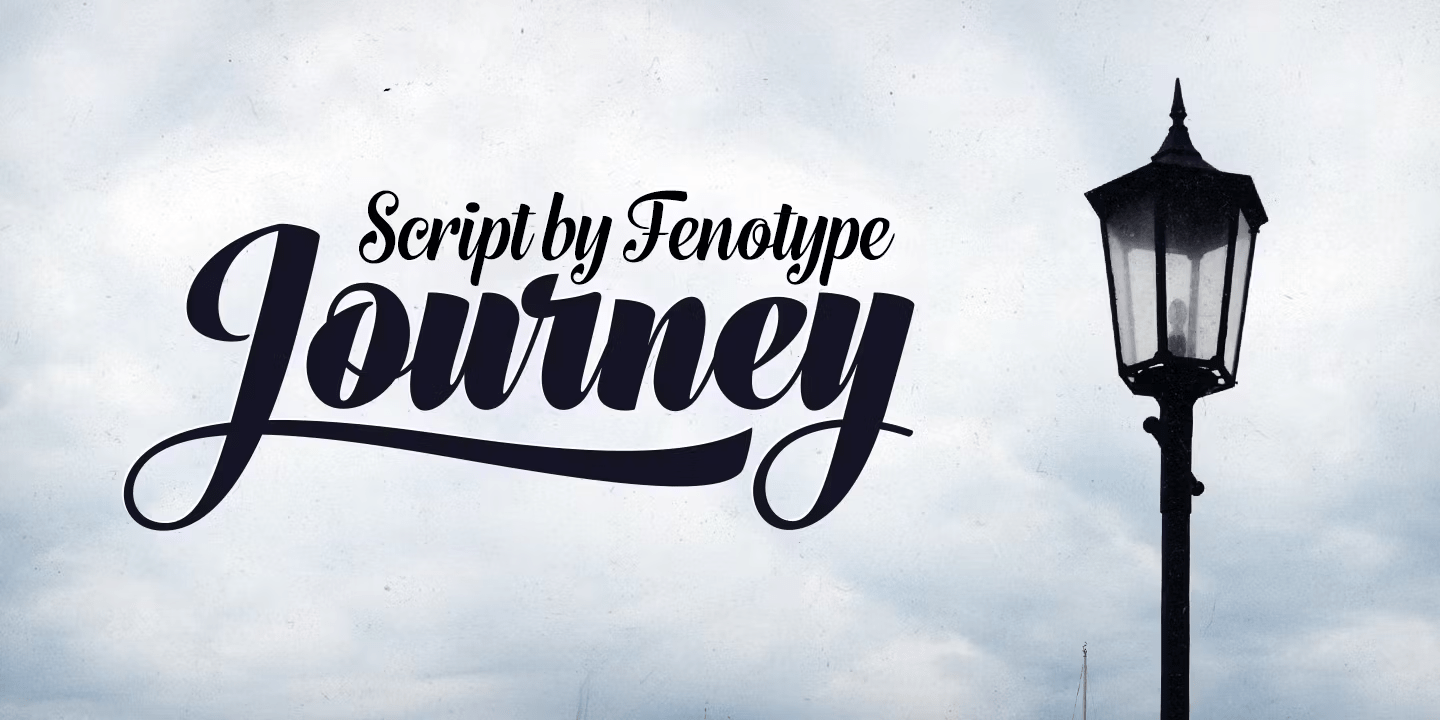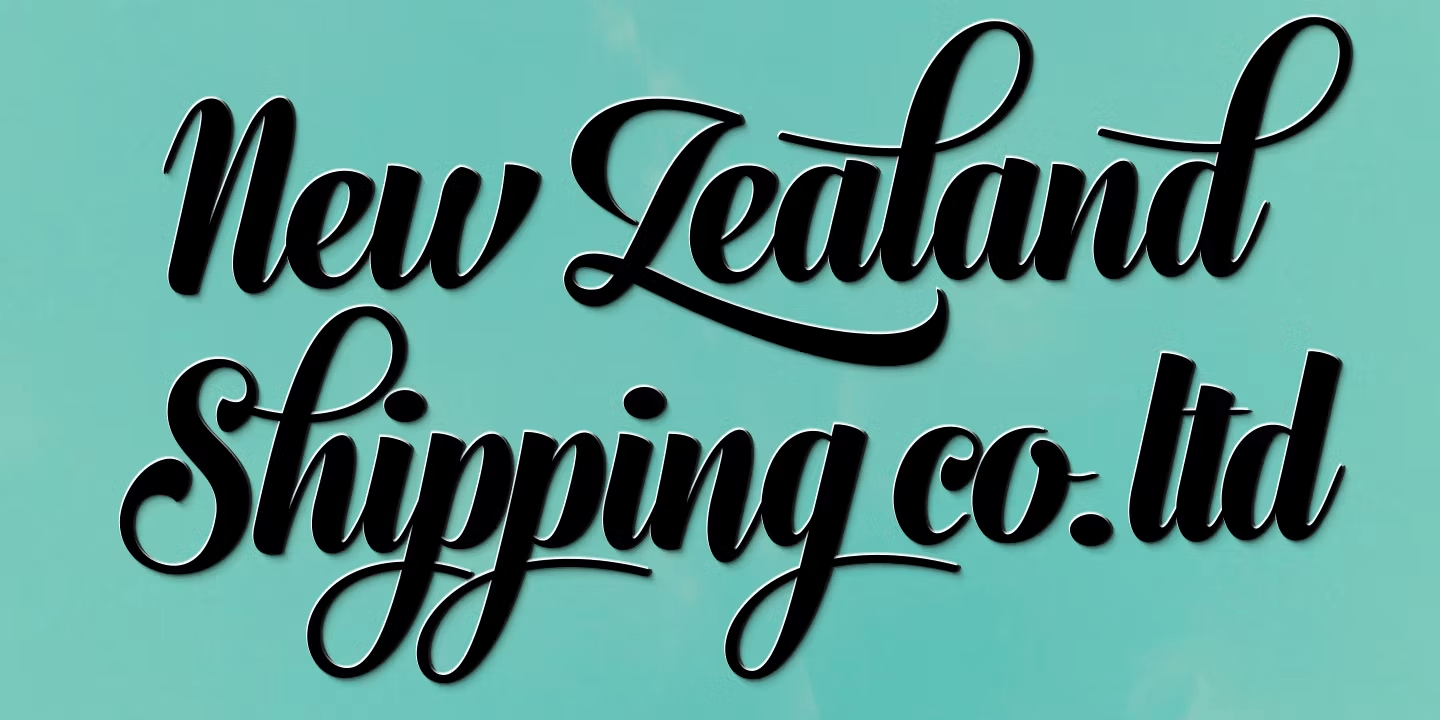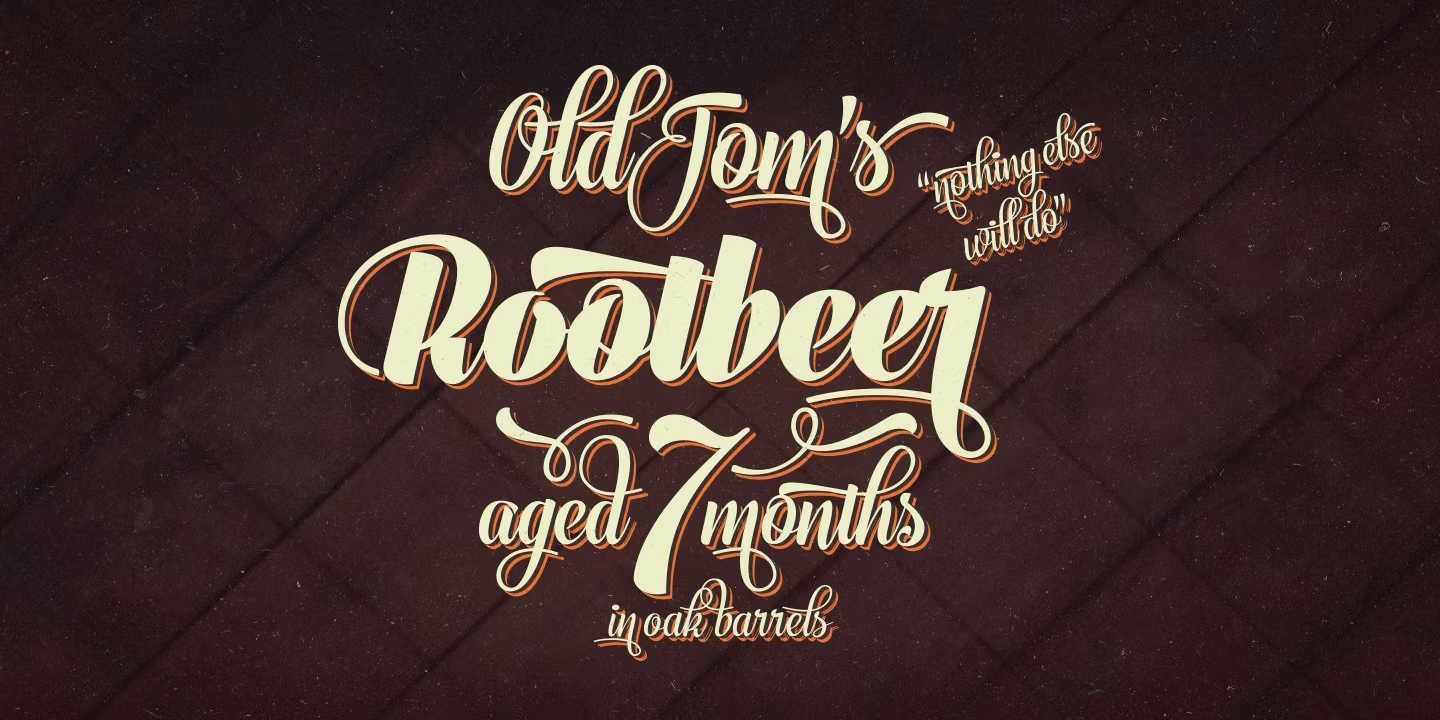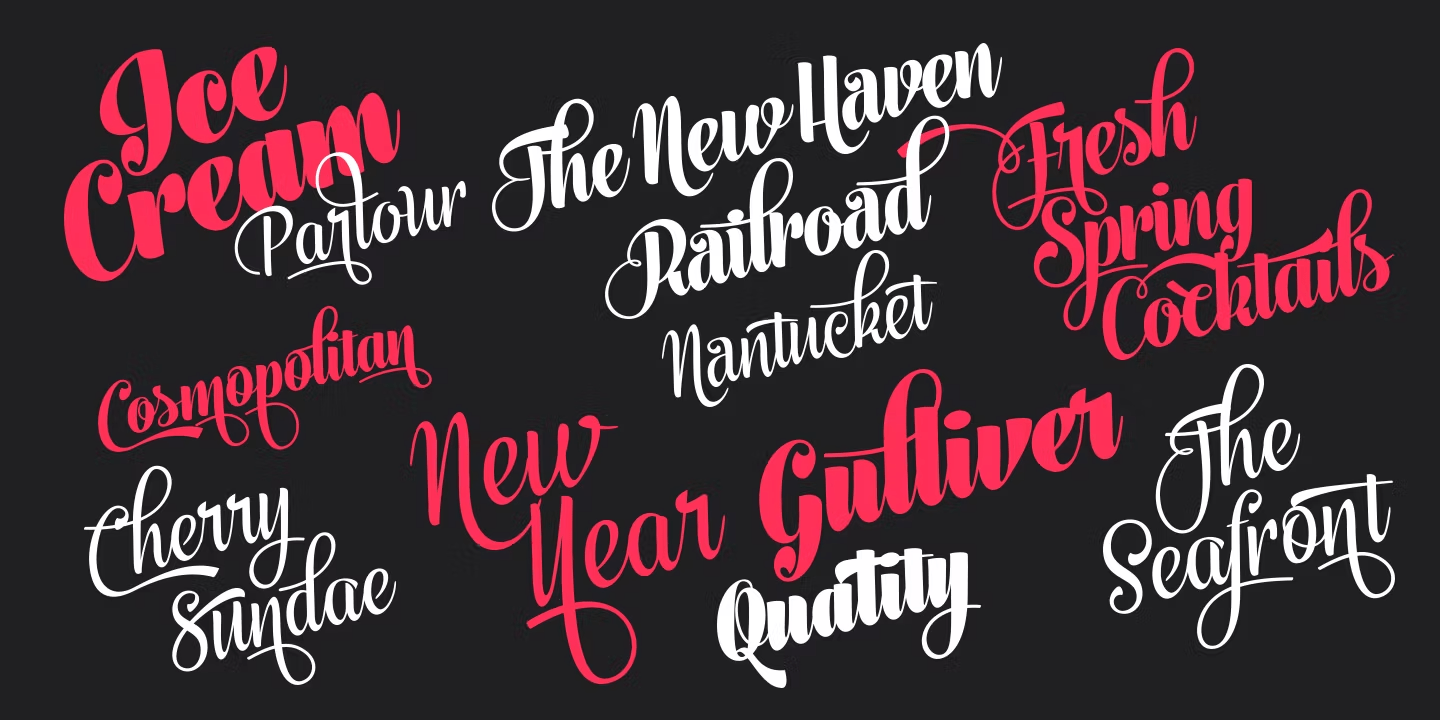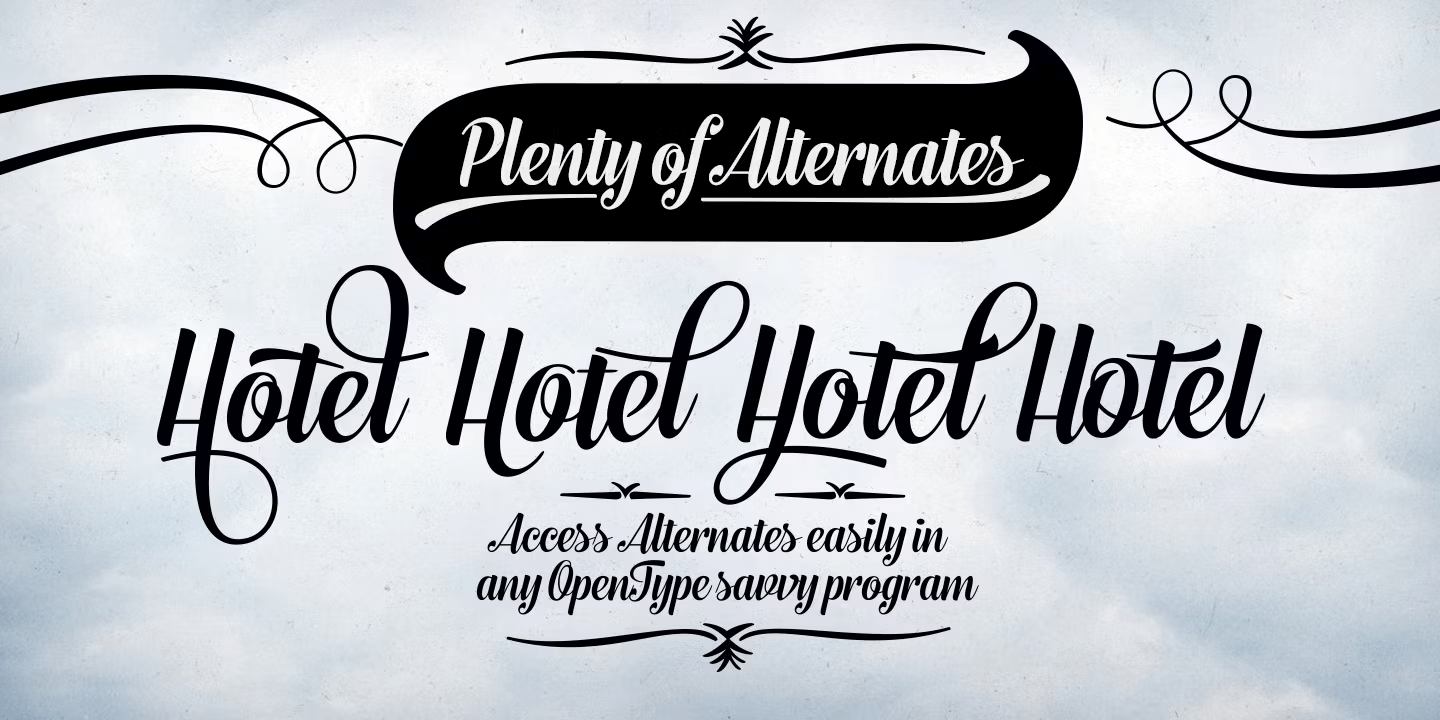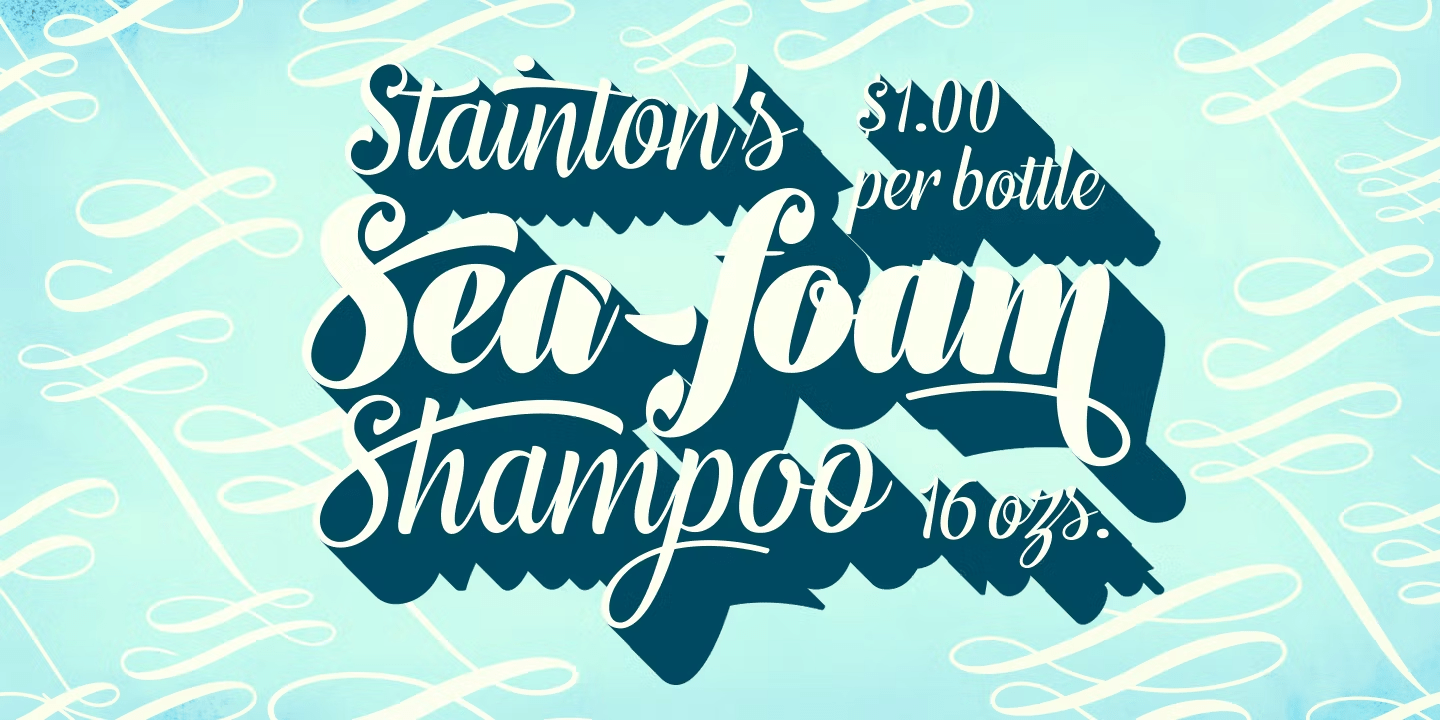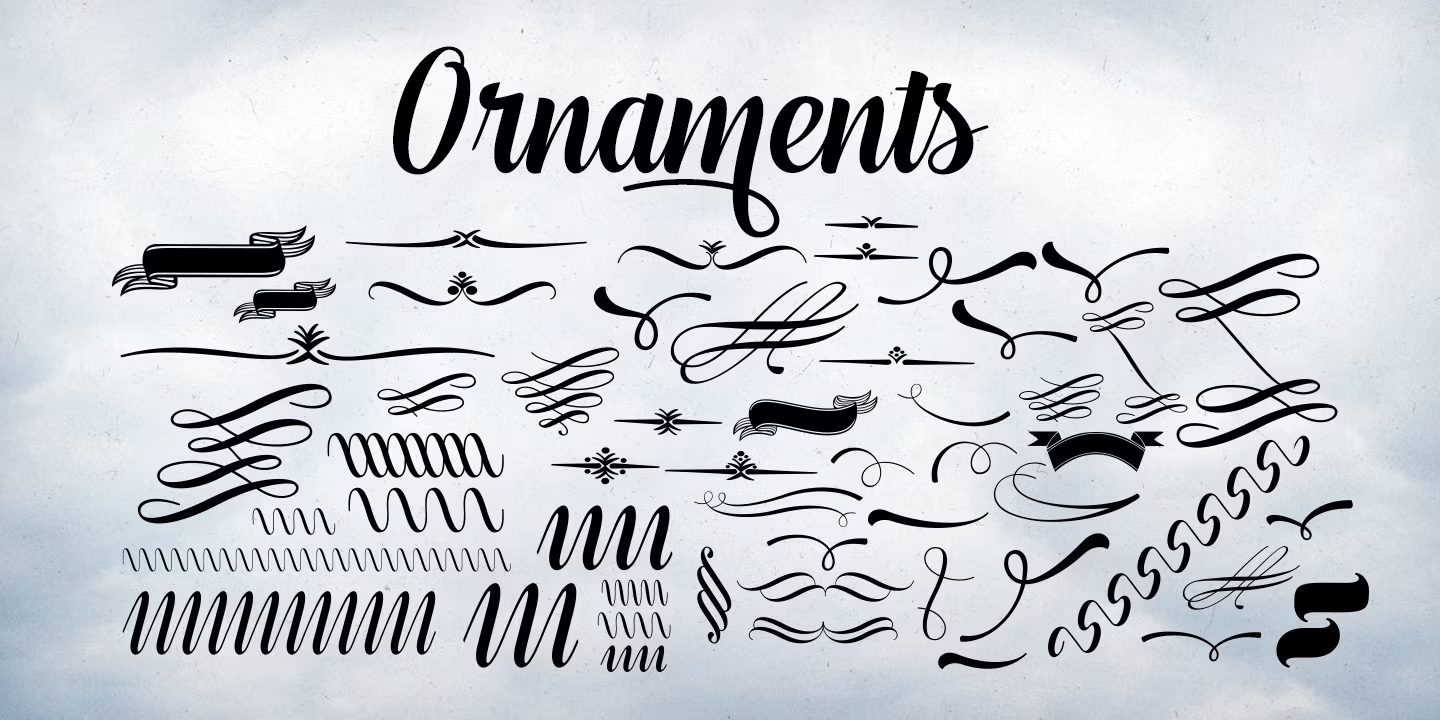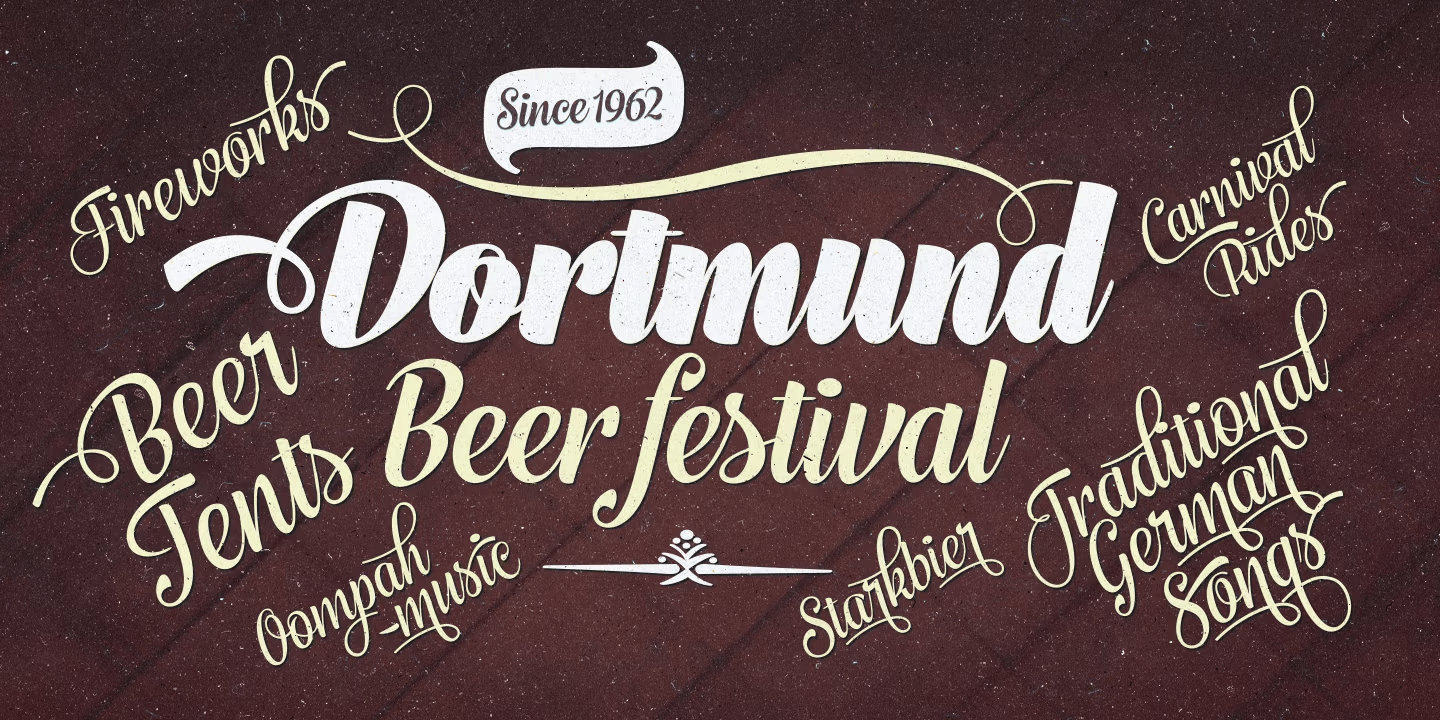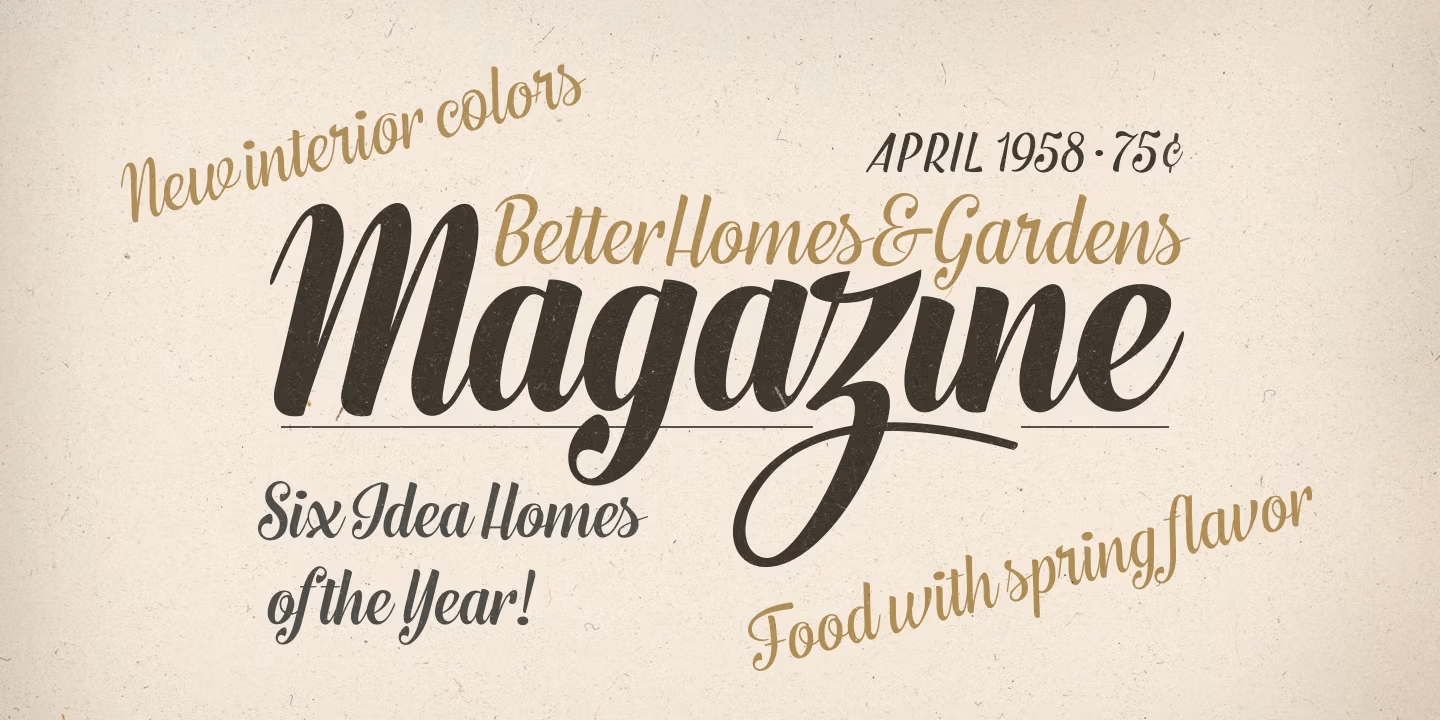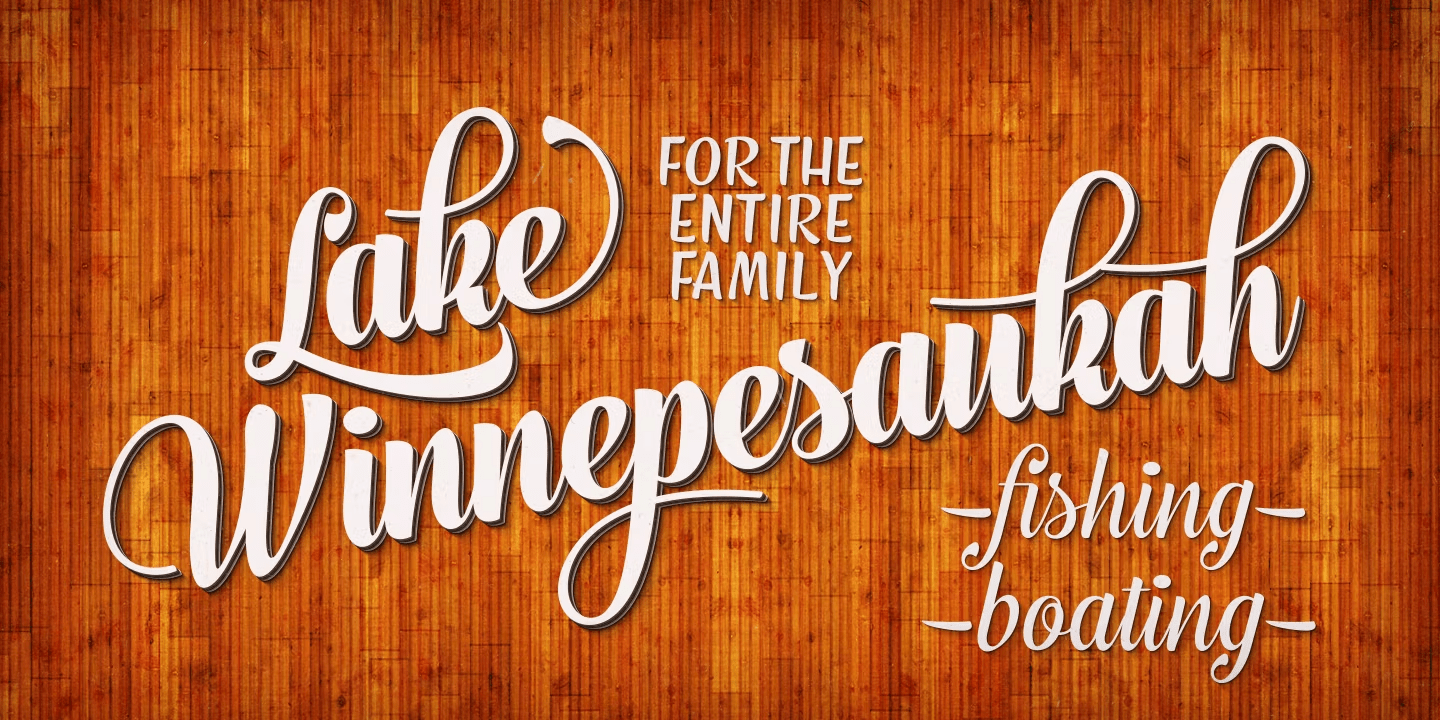
Journey
Font Family by Fenotype
Journey is a smooth and elegant vintage script family of four weights and a matching ornament set. Journey is packed with Alternate characters that let you easily create headlines, logos & posters with a custom-made feeling.
Journey has a minimum three alternatives to every basic letter: To activate the alternates click on Swash, Stylistic or Titling Alternates in any OpenType Savvy program or manually choose from even more alternate characters from the Glyph Palette.